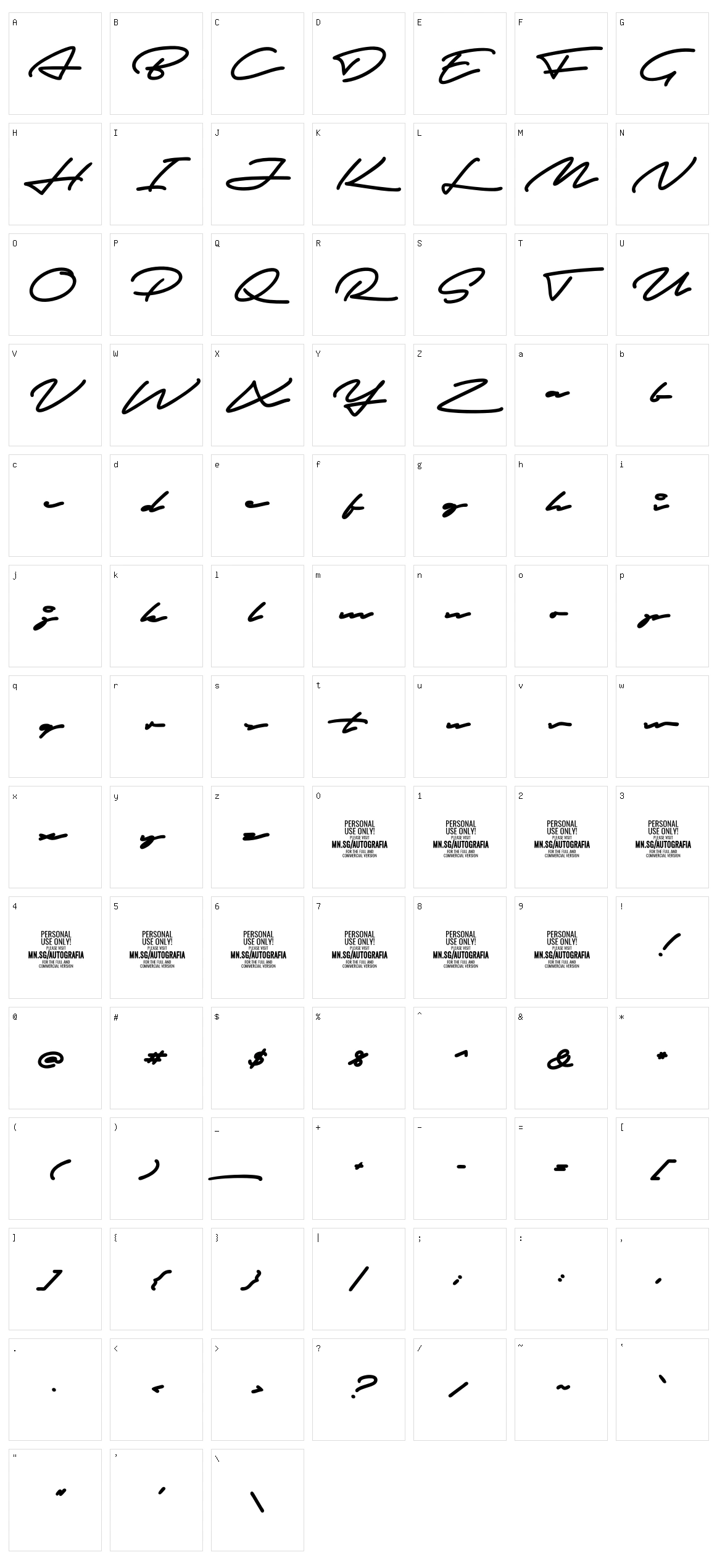
Autografia is a high-quality signature typeface.
The typeface family is provided in five weights: Thin, Light, Medium, Bold and Black.
The weights compliment each other and makes for a truly formative script typeface, to be used in any context and with the right assertion.
Autografia's large, round capital letters contrast against its short and streamlined lower case, resulting in a characteristic autograph style.
Use underscore _ anywhere in a word to make an underline.
Example: Sign_ature
Use multiple underscores for different underlines.
Example: Hand_____writing
The font is built with advanced OpenType functionality and has a guaranteed top-notch quality, containing stylistic and contextual alternates, ligatures and more features; all to give you full control and customizability.
It has extensive lingual support, covering all Latin-based languages, from North Europe to South Africa, from America to South-East Asia.
It contains all characters and symbols you'll ever need, including all punctuation and numbers.